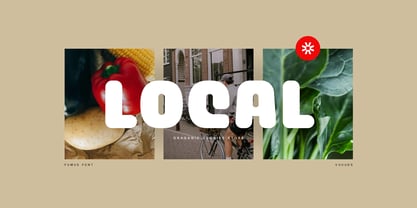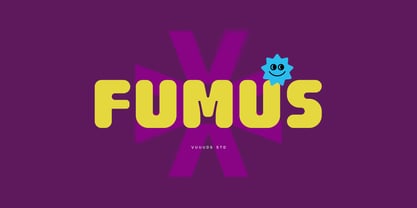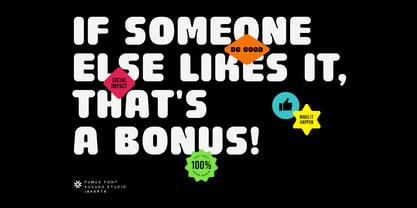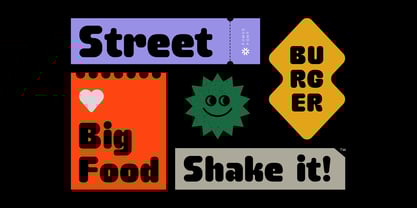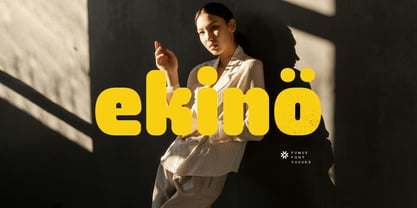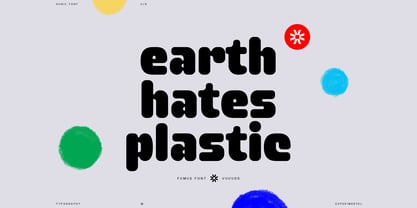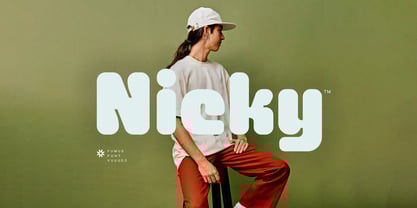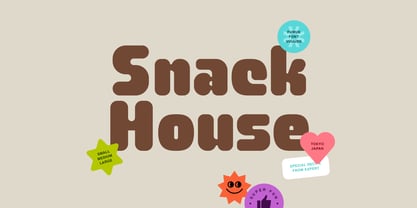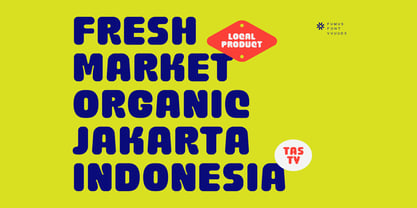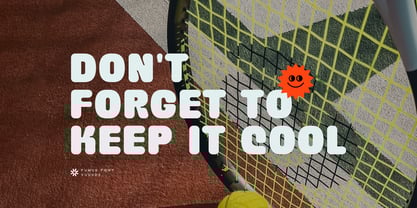
Fumus
by vuuuds
The Fumus Font Family was designed by Agung Syaifudin and published by vuuuds. Fumus contains 1 styles. More about this family
Introducing Fumus Font!
Fumus is modern experimental extra bold font, every single letters have been uniquely crafted.
Designers: Agung Syaifudin
vuuuds studio is a typeface design studio founded by Agung Syaifudin. This studio was founded in 2015 in the city of Malang, Indonesia.We like to experiment with fonts so that each font we have has a unique and fresh personality.Our focus is on creating fonts with unique styles, so that each of our fonts can stand out when applied to a design.We're always up to date with design so the font experiments we produce are sure to help designers beautify their projects.